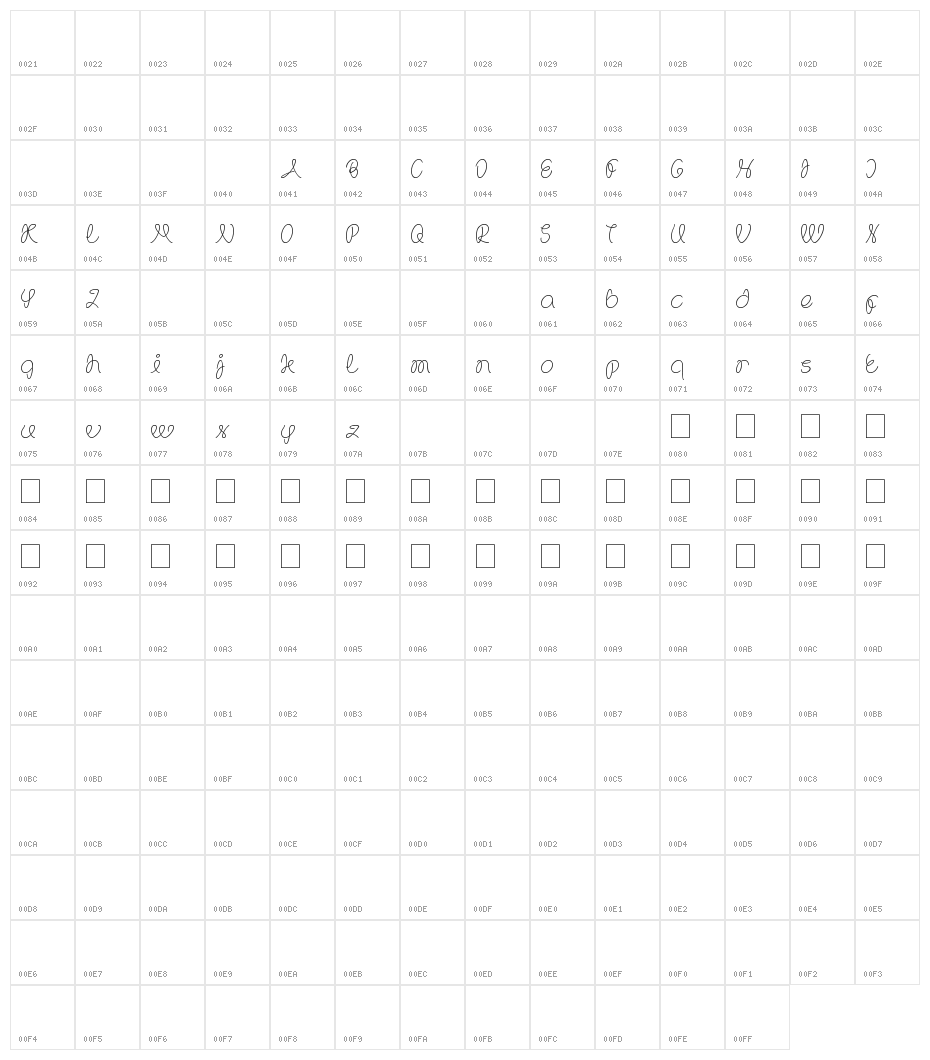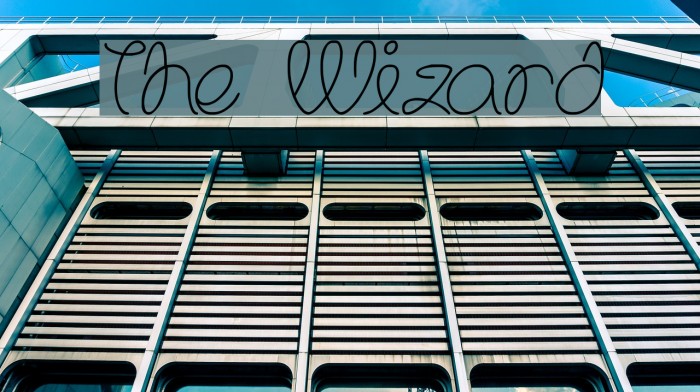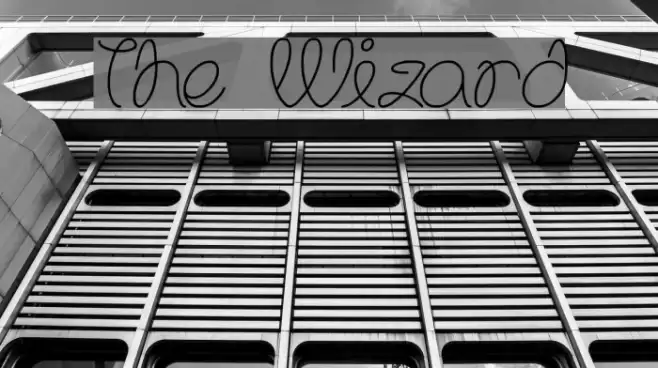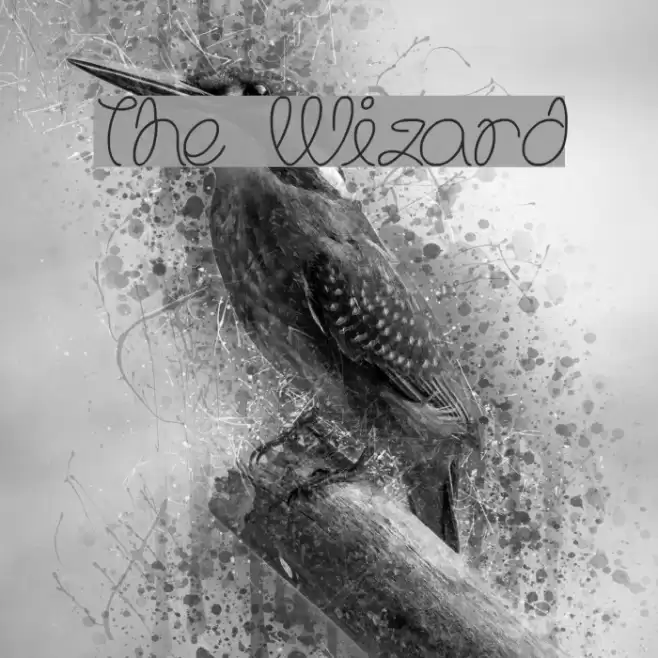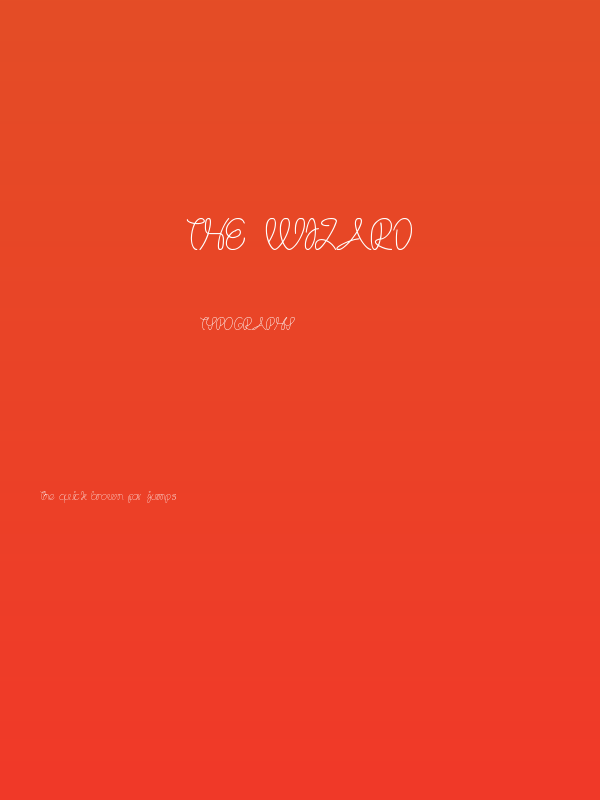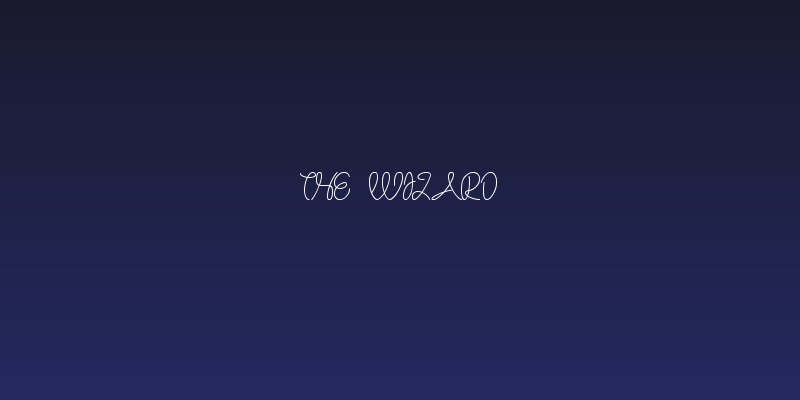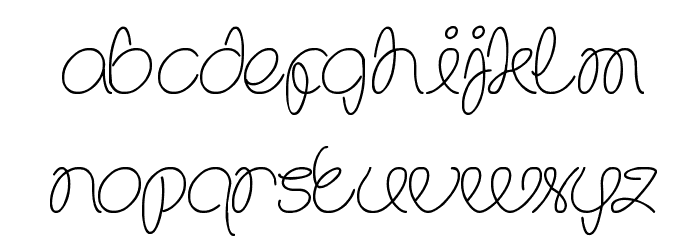
The Wizard Font
The Wizard Description
This font exhibits a whimsical and flowing script style, characterized by its elegant loops and curves. Each letter is intricately designed with a sense of movement, creating a dynamic and lively appearance. The uppercase letters are particularly ornate, with exaggerated flourishes that give the font a decorative and artistic feel. The lowercase letters maintain a consistent style, complementing the uppercase with their own subtle embellishments. This font is ideal for projects that require a touch of elegance and creativity, such as invitations, greeting cards, and artistic branding. Its unique style makes it stand out, adding a personal and handcrafted touch to any design.
| Use Case | Logos, Invitations, Artistic Branding |
| Proposed Projects | Ideal for invitations, greeting cards, artistic branding, and decorative projects. |